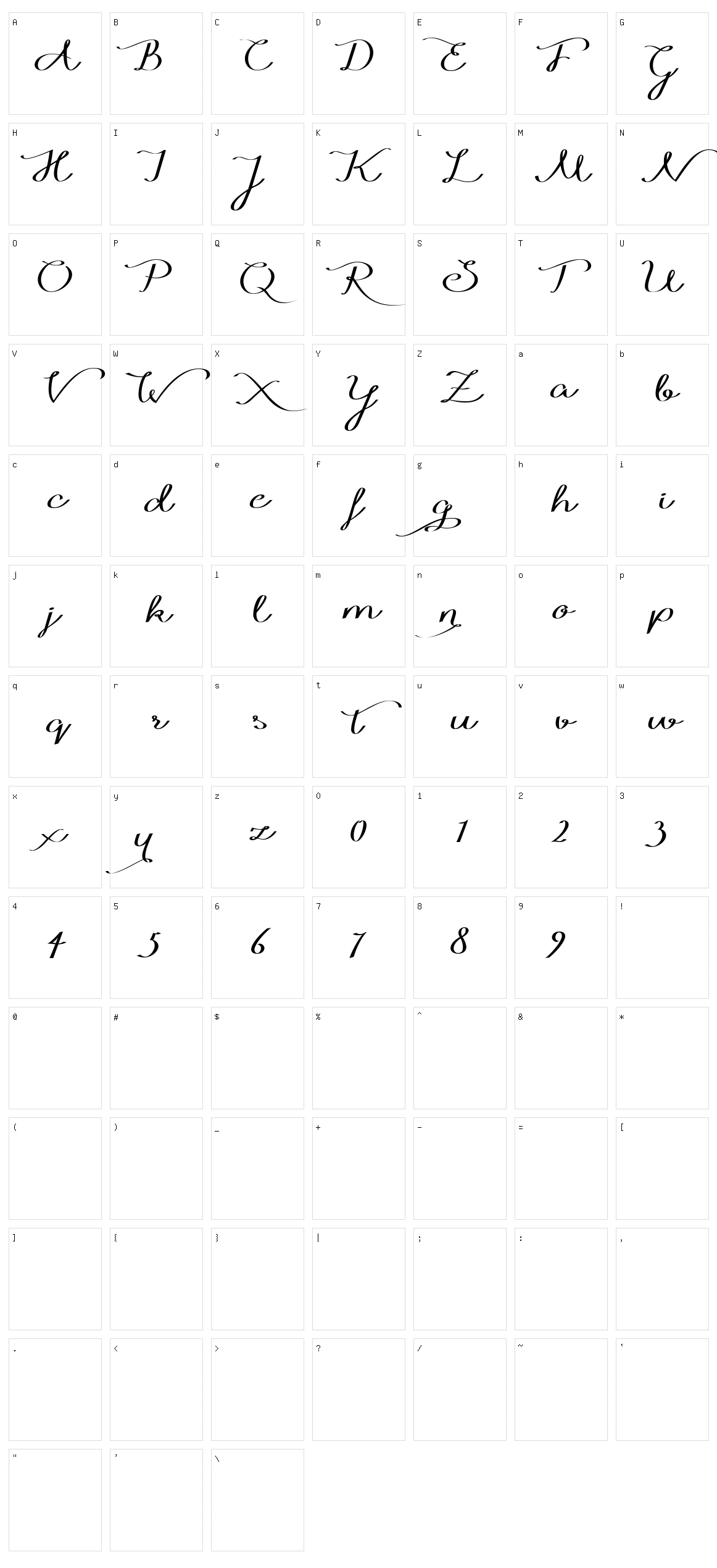
Windy Rain
Designed by: Roland Huse Design
ÿþWINDY RAIN is the clean version of my first handwritten calligraphy font "Rainy Wind".
Please note that this is my first attempt to create cyrillic handwritten fonts they may not be perfect in appearance, legiblility and kerning. Therefore all feedback and help yould be greatly appreciated for future development on this font.
-This family does not contain all the language extensions, but I am willing to create any extensions on request